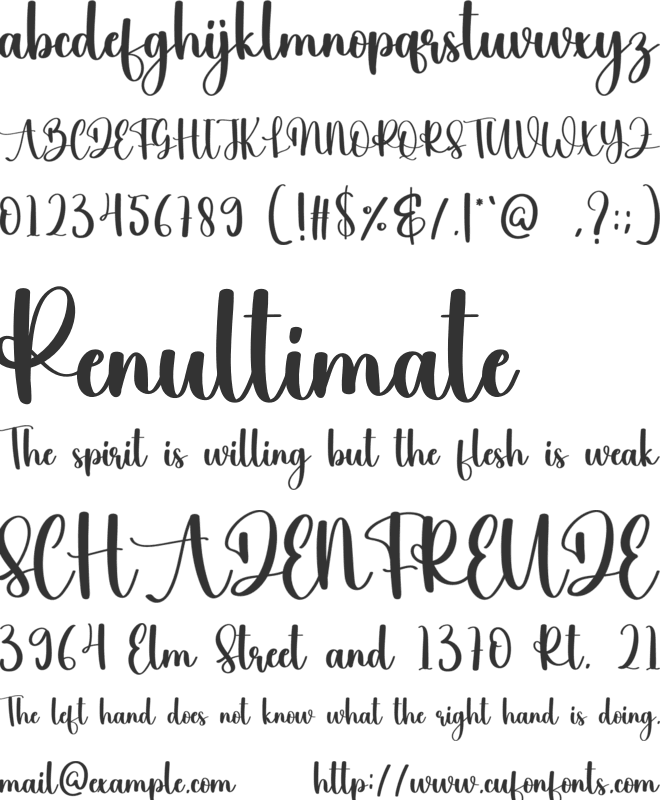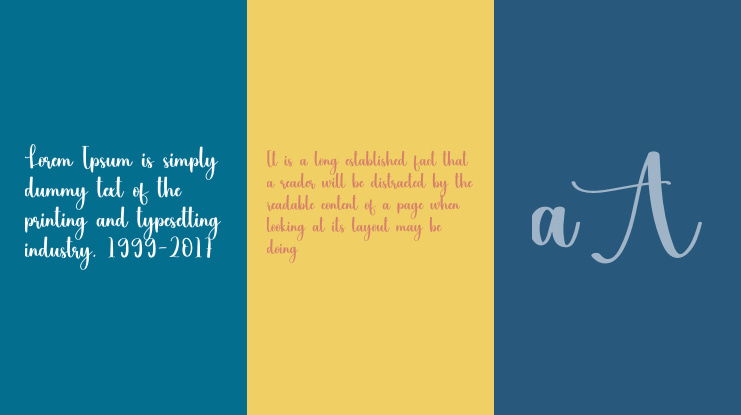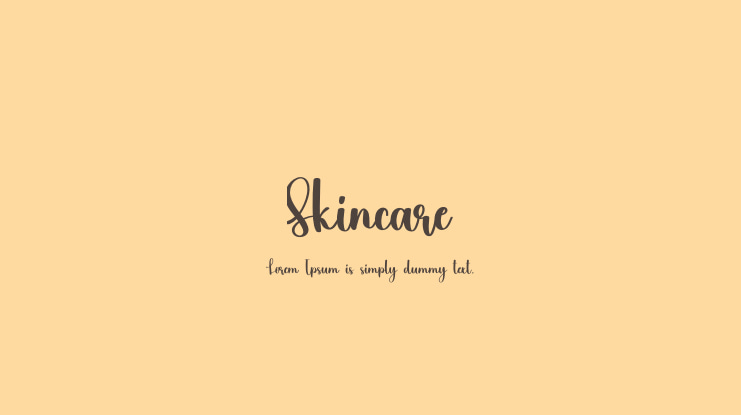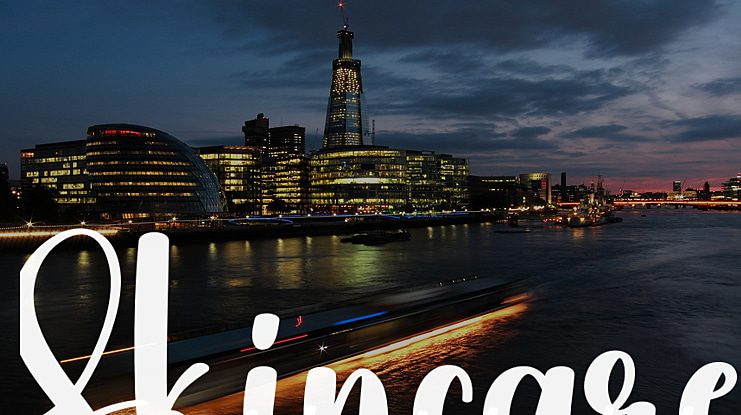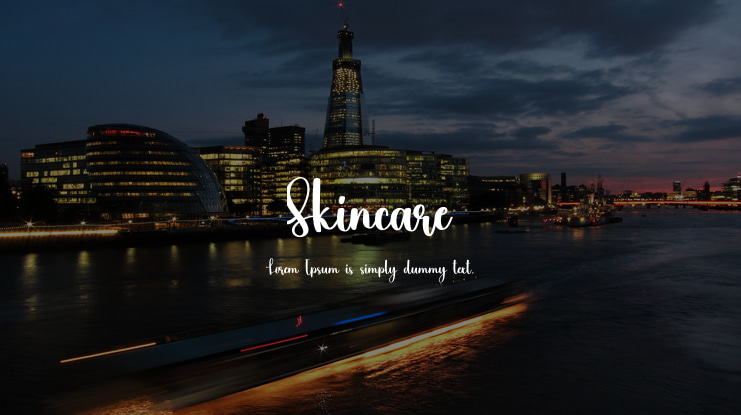
Skincare Font
This font is perfect for your creative ideas, both formal and informal. It has a modern style with a touch of creative ideas that is very suitable to be applied anywhere that requires creative ideas such as invitation cards, letterheads, website logos, social media, banners, advertisements, brochures, packaging products, leather products, and any product that requires writing.
the latest style letters are perfect for wall displays, wedding invitations, social media post logos, advertisements, product packaging, product designs, labels, photography, watermarks, invitations, stationery, and any project that requires taste handwriting.